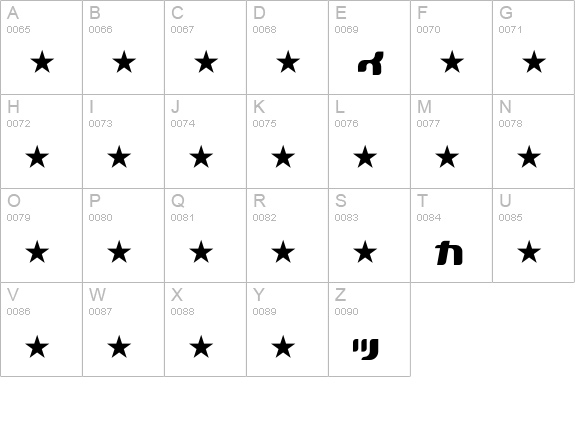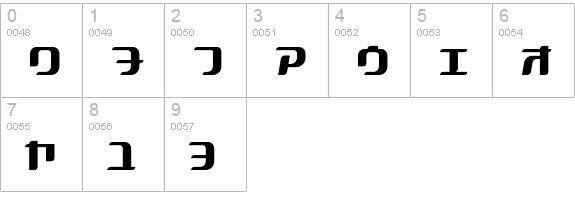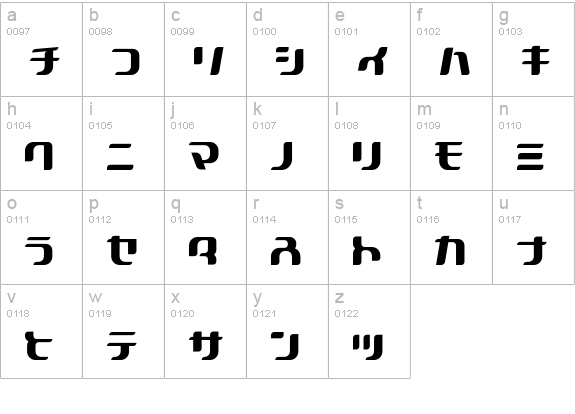
ACRYLIC2081-KAT30 is a stunning and versatile font that exudes a modern and edgy vibe. Its bold and angular design makes it perfect for creating eye-catching headlines, logos, and branding materials. This font is sure to make a statement and leave a lasting impression on your audience. What makes ACRYLIC2081-KAT30 even more appealing is that it is available for free download at FontsMarket.com. This means that you can easily access this unique font and use it in your projects without any cost. Don't miss out on the opportunity to add ACRYLIC2081-KAT30 to your font collection and elevate your designs with its bold and impactful aesthetic.